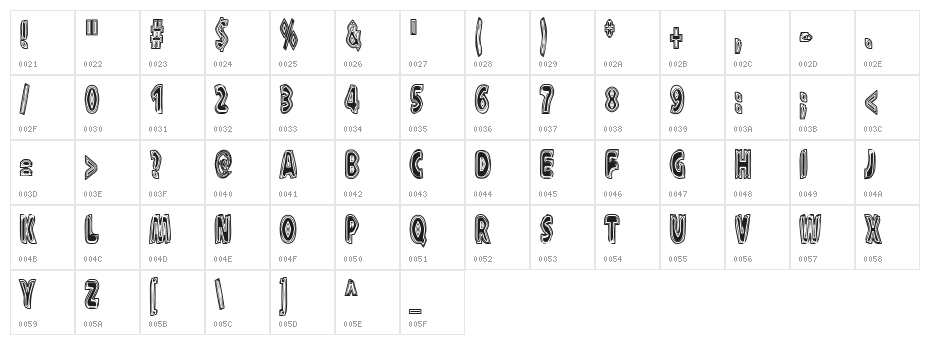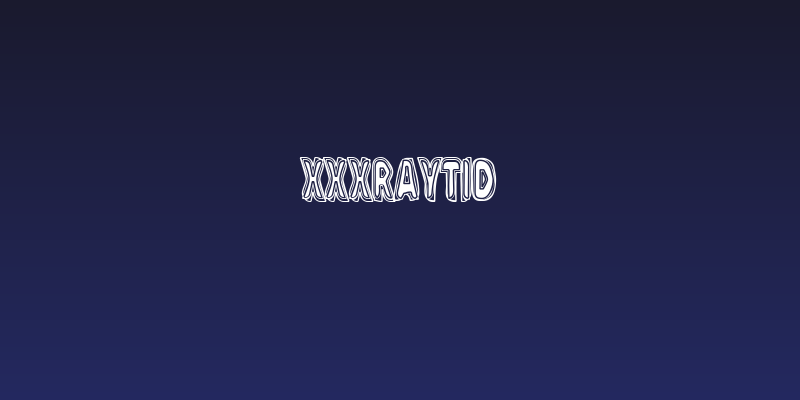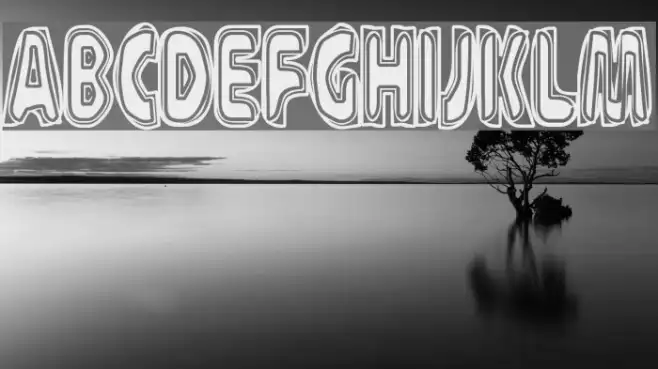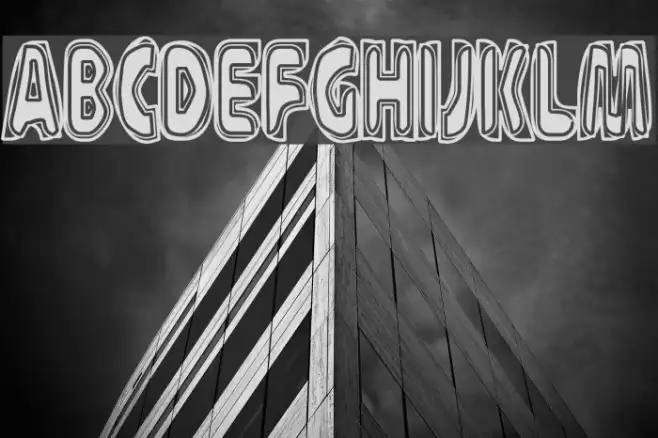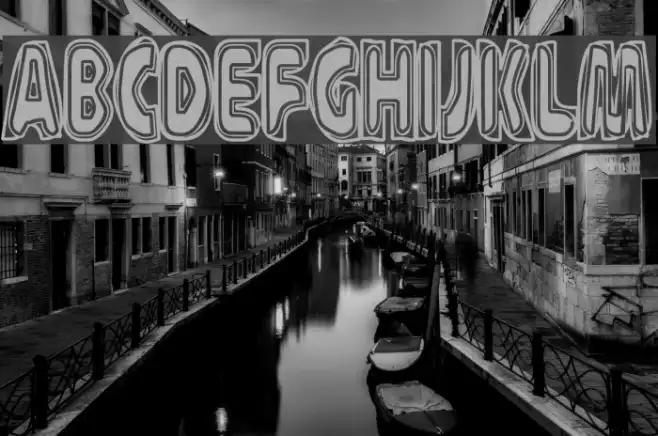
XXXRaytid Font
XXXRaytid Description
This font features a bold, playful design with a three-dimensional effect created by its thick, outlined letters. The characters have a hand-drawn, cartoonish style, making them stand out with a dynamic and energetic appearance. The uppercase and lowercase letters maintain a consistent style, with exaggerated curves and angles that add to the font's whimsical nature. The numbers and special characters follow the same design principles, ensuring a cohesive look across all elements. This font is ideal for projects that require a fun and eye-catching aesthetic.
| Proposed Projects | Ideal for children's book covers, playful branding, posters, and event flyers. |